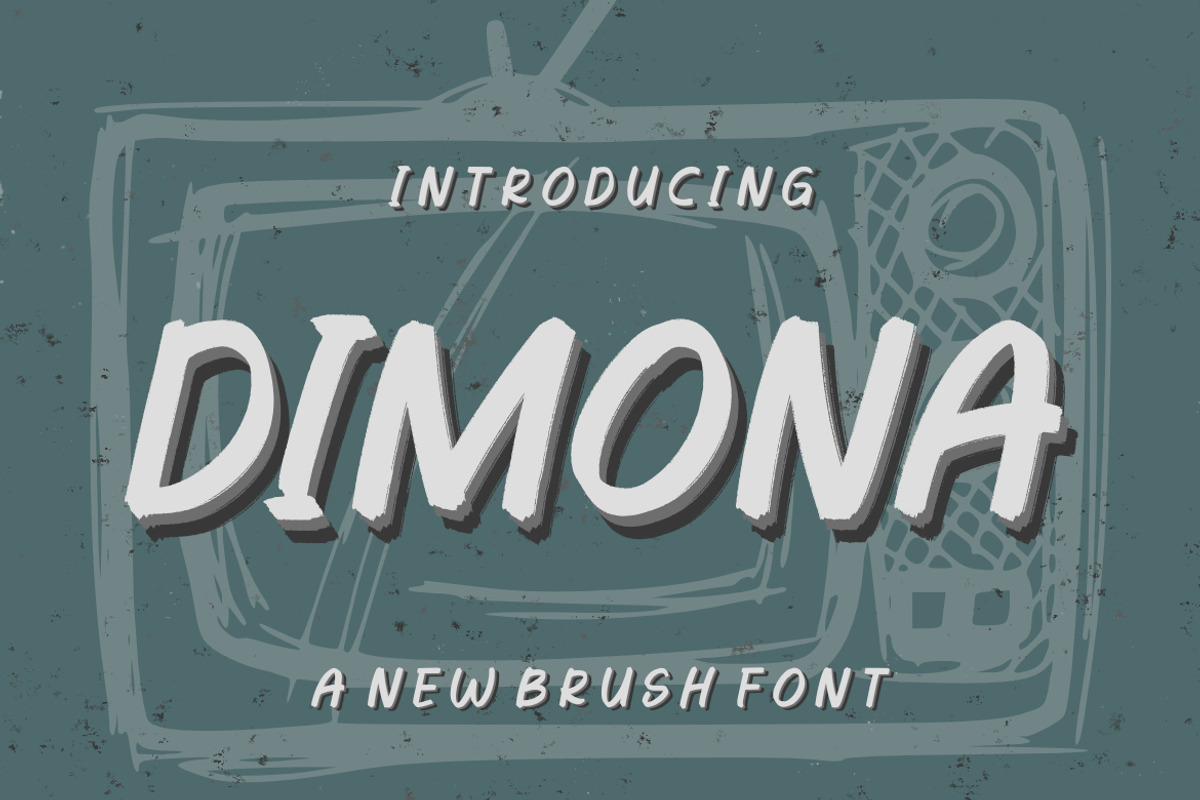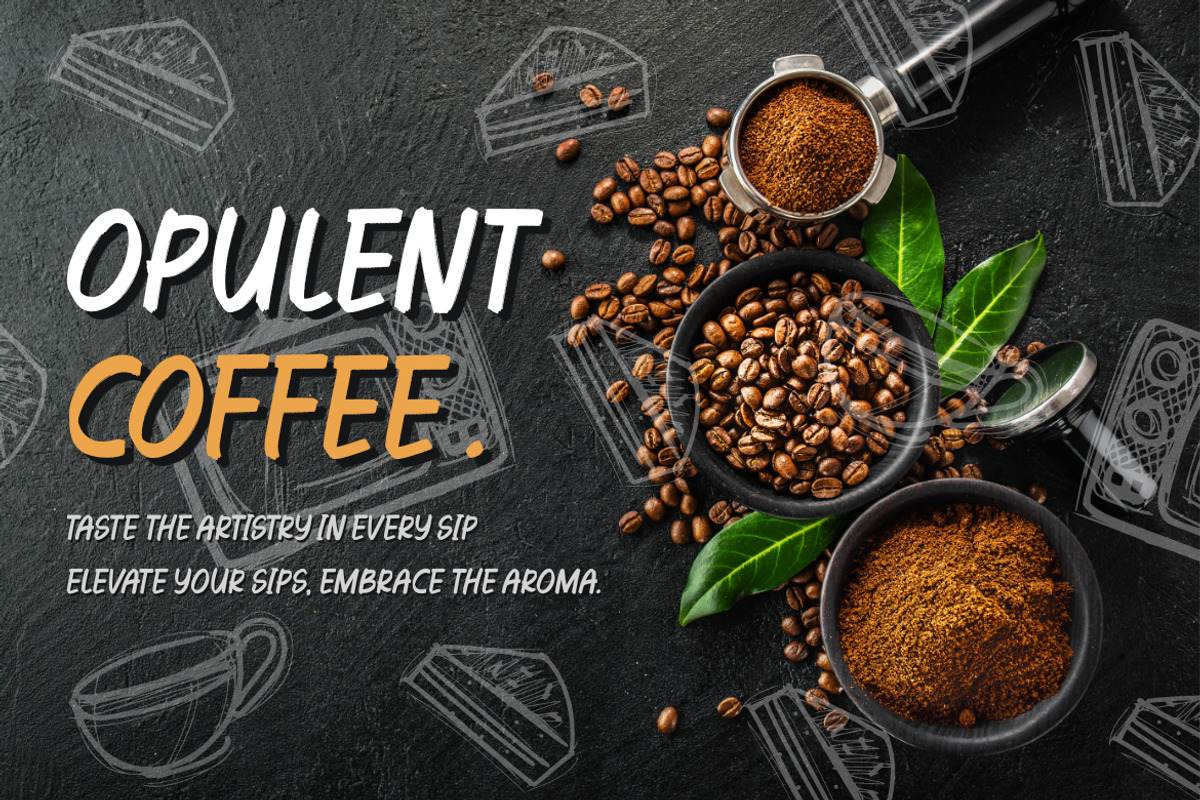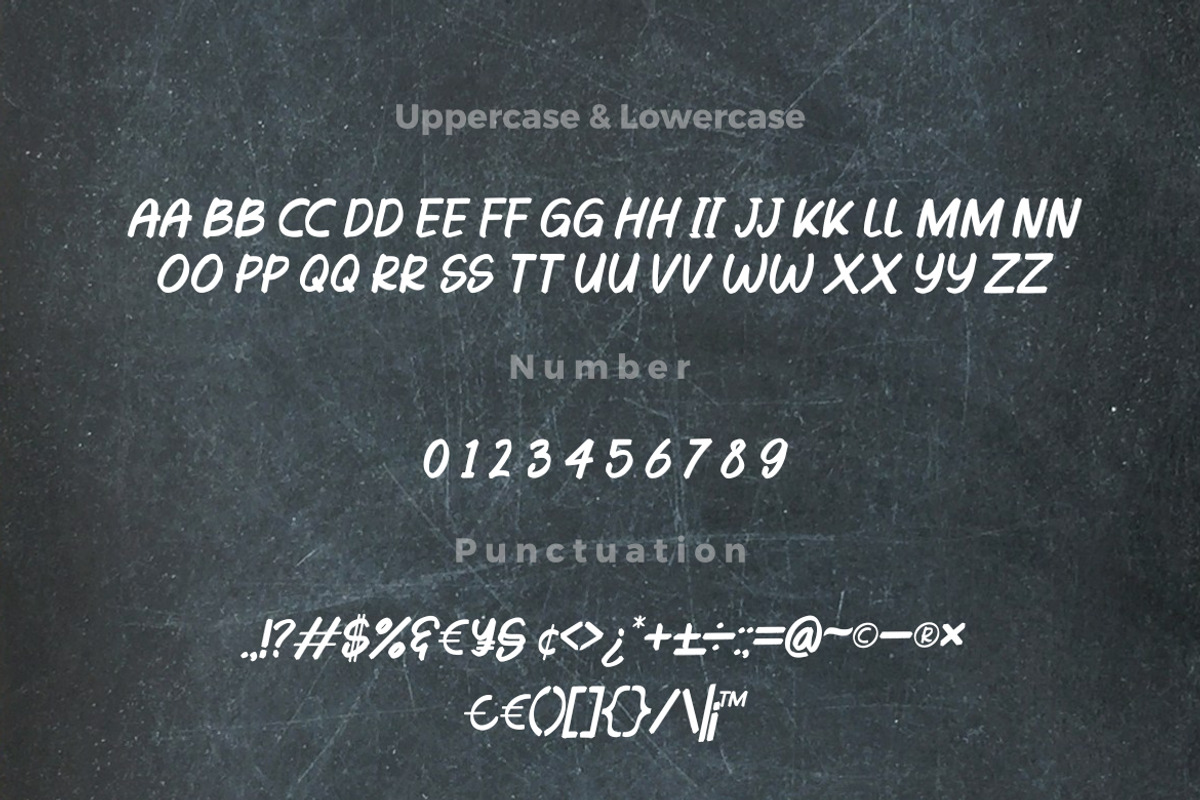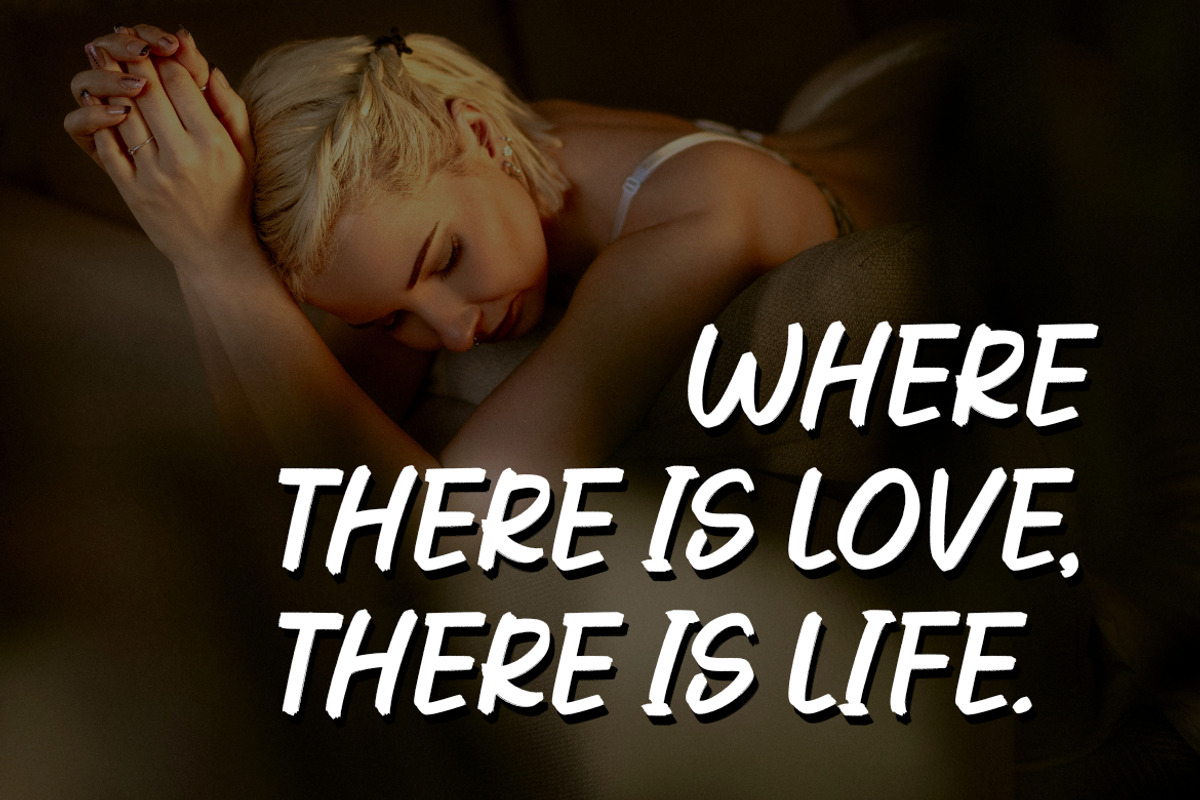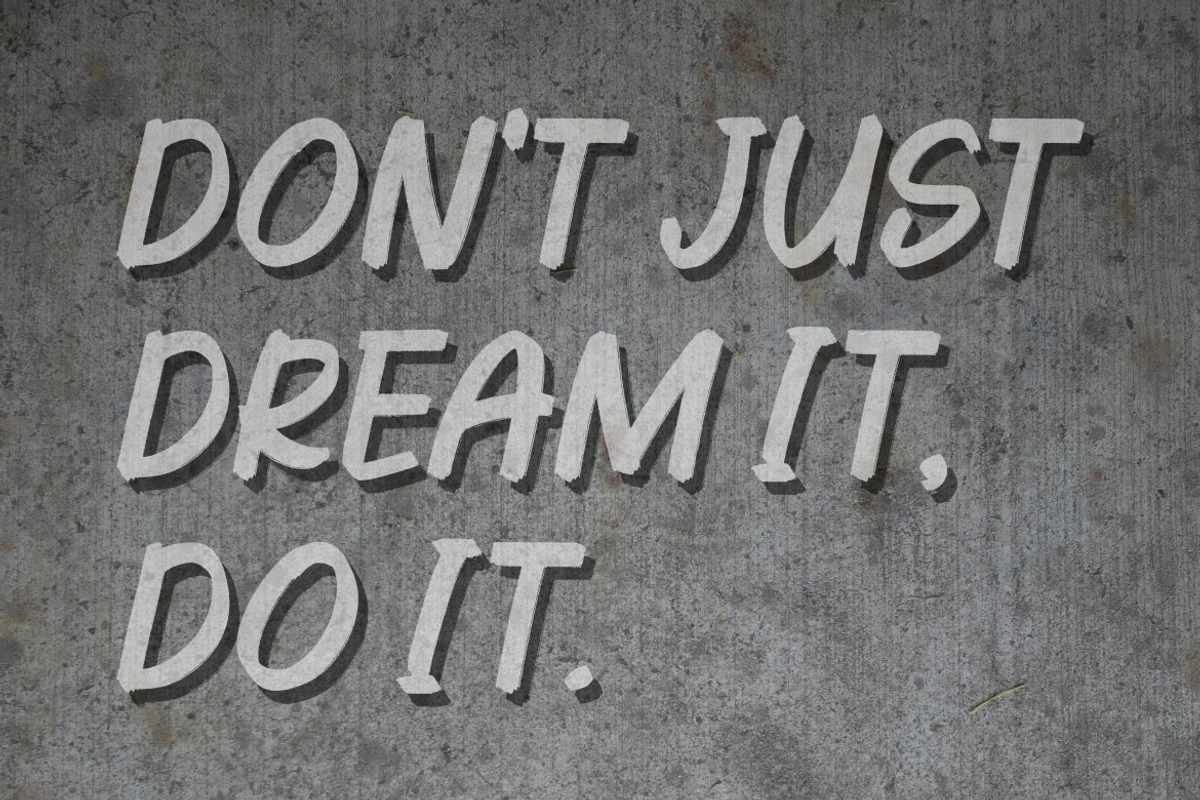
Dimona | Brush Font
Dimona Brush Font, inspired by brush typography. This font is made with a high premium quality level which you can use as flyers, quotes, posters, banners, packaging, merchandise, logotypes and much more.